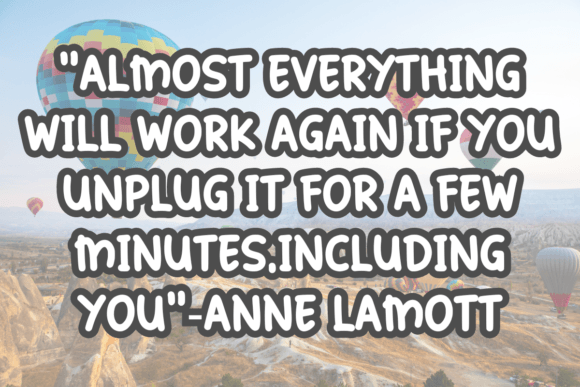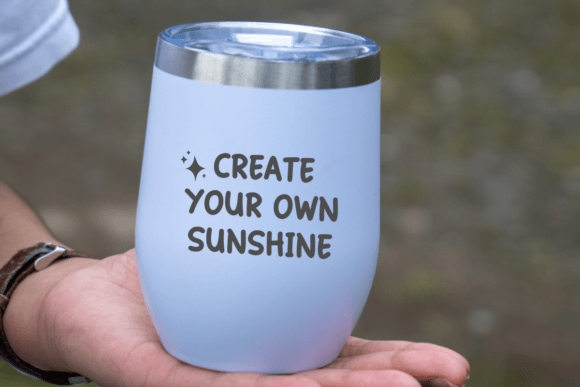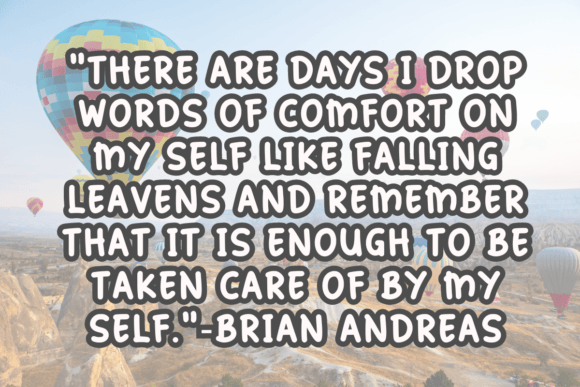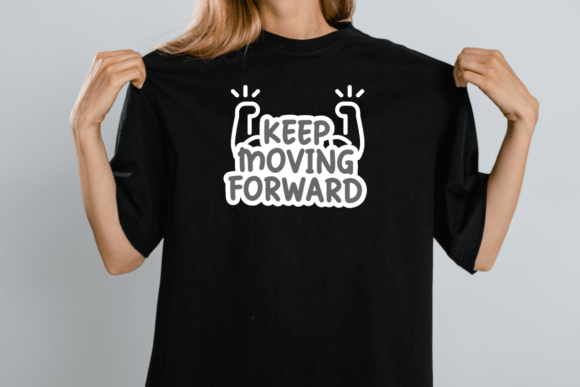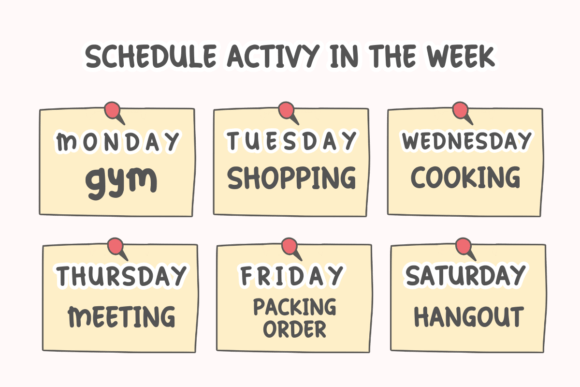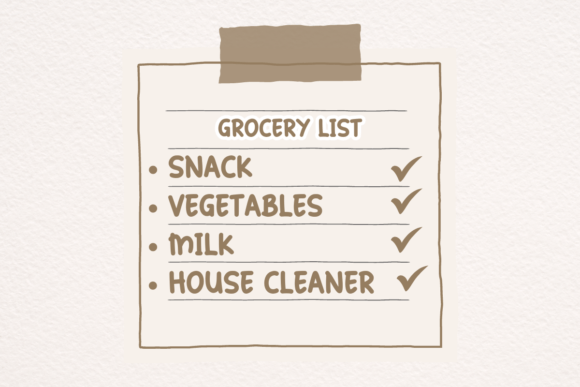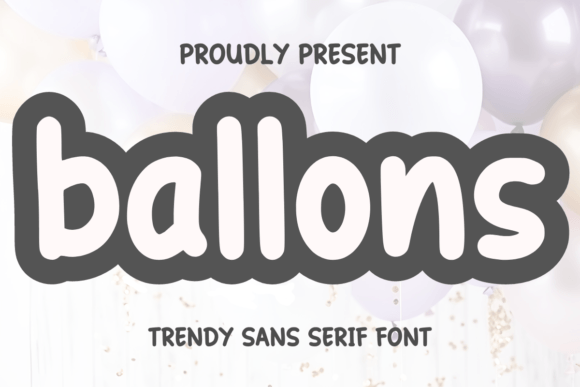
Discover the Joy of Ballons Font
Have you ever been stuck in a creative rut, rummaging through font collections, searching for the perfect match to bring your design to life? I know I have! But what if I told you that I stumbled upon a hidden gem that has been making my designs sparkle ever since?
Meet Ballons Font, a charming sans serif font that exudes cuteness and femininity. With its natural, hand-drawn strokes, Ballons Font is perfect for a wide range of projects, from journals and scrapbooks to interior designs and quotes. Whether you’re a seasoned designer or a crafty enthusiast, Ballons Font is an invaluable addition to your toolkit.
Balloons Font Key Features
- Font Family: Balloons is a sans-serif font family designed by the Fontfabric type foundry.
- Font Size: The font family includes 12 styles, ranging from 100 to 900, providing flexibility for various design applications.
- Unique Characteristics: Balloons features a clean, modern design with rounded corners, making it ideal for digital and print media, such as logos, headings, and body text.
- Font Weight: The font family offers a range of weights, from light to bold, allowing designers to create visually appealing and balanced typography.
Designer Review: Balloons Font
Overall, I think Balloons Font has some great qualities that make it a fun and unique choice for certain designs. ✨ It’s perfect for adding a playful, whimsical touch to your work. The rounded shapes and soft edges give it a friendly, approachable feel.
The font comes in a range of weights, from light to bold, which is great for creating visual interest and hierarchy in your designs. ✨ The ligatures and swashes add a touch of elegance and sophistication, making it suitable for more formal projects.
While Balloons Font is great for certain projects, it may not be the best choice for others. ⚠️ One of the main limitations is its lack of clarity at smaller sizes. The rounded shapes can become blurry and difficult to read, which may be a problem for designs that require a lot of small text.
I think Balloons Font is a great addition to any designer’s toolkit, but it’s essential to use it wisely. It’s perfect for projects that require a playful, creative touch, but may not be the best choice for more formal or technical designs. ✨ With its range of weights and elegant ligatures, it’s a great choice for designers who want to add a little whimsy to their work.
- ✨ Perfect for adding a playful, whimsical touch to your designs
- ✨ Range of weights for creating visual interest and hierarchy
- ✨ Elegant ligatures and swashes for a sophisticated feel
- ⚠️ Lack of clarity at smaller sizes
- ⚠️ May not be suitable for formal or technical designs
Practical Application Guide: Ballons Font
Tips for Getting the Most Out of Ballons Font
Ballons Font is ideal for creating playful and whimsical designs. To get the most out of it, try the following:
- Use it in combination with bold or italic text for emphasis.
- Use it to create headings or titles for a unique and eye-catching look.
Ballons Font is commonly used in:
- Food and drink labels for a playful and whimsical look.
- Advertising and marketing materials for a fun and energetic
Alternatives to Ballons Font
Great Vibes is a beautiful, elegant script font that works well for titles and headings. It’s perfect for designs that require a touch of sophistication and luxury. Compared to Ballons Font, Great Vibes has a more refined and sophisticated look, making it ideal for high-end branding and packaging.
Carolyna Pro is a modern script font with a playful and feminine touch. It’s perfect for designs that require a sense of whimsy and fun. Compared to Ballons Font, Carolyna Pro has a more relaxed and casual feel, making it ideal for creative and artistic projects.